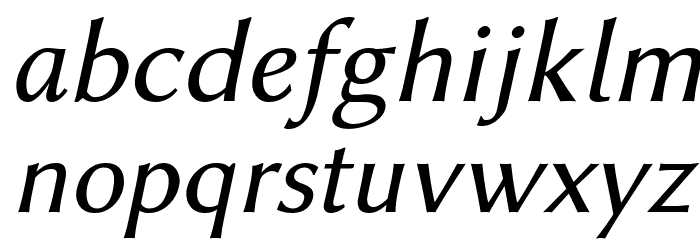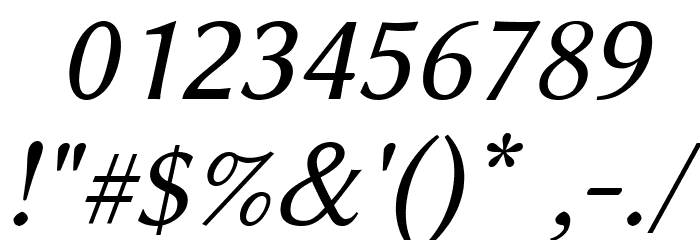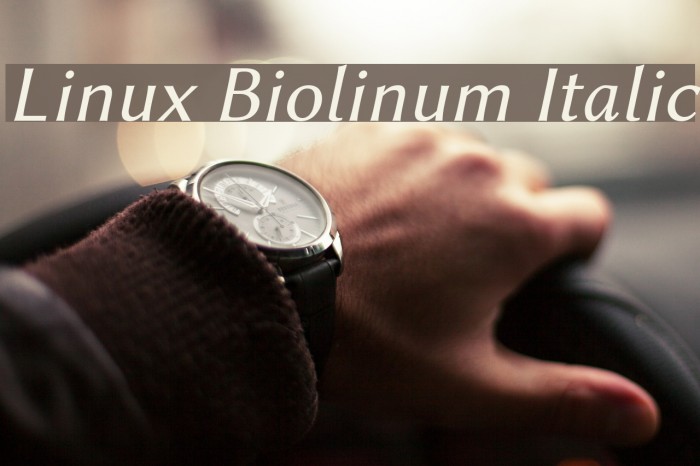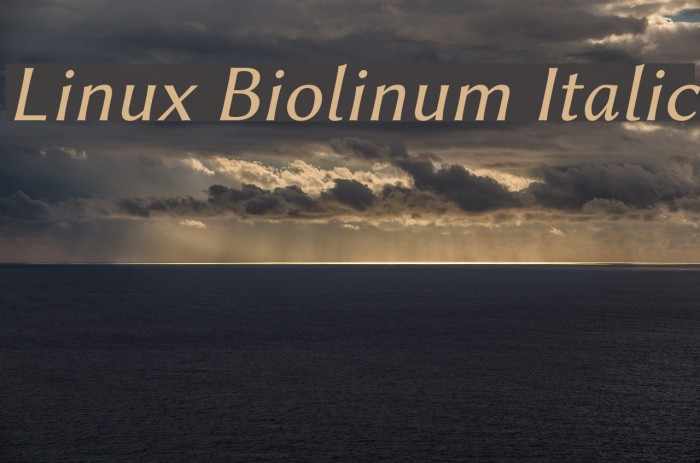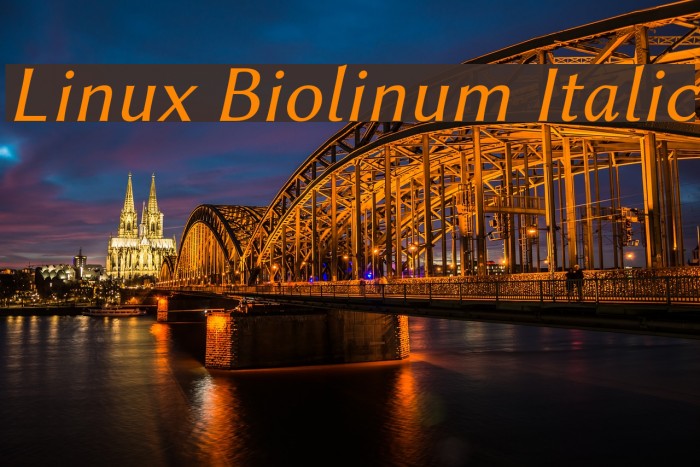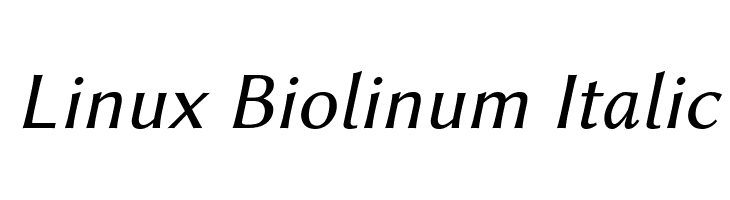
Linux Biolinum Italic Font
This font exhibits a clean and elegant design with a slight italic slant, giving it a sophisticated and dynamic appearance. The characters are well-proportioned, with smooth curves and a consistent stroke width that enhances readability. The uppercase letters are tall and commanding, while the lowercase letters maintain a graceful flow. The numerals are clear and distinct, making them suitable for both text and numerical data. Special characters are thoughtfully designed, ensuring they integrate seamlessly with the rest of the typeface. Overall, this font combines modern aesthetics with classic elements, making it versatile for various design needs.
A clean, elegant italic font with smooth curves and consistent stroke width.
- Proposed Projects: Ideal for editorial design, branding, and elegant invitations.